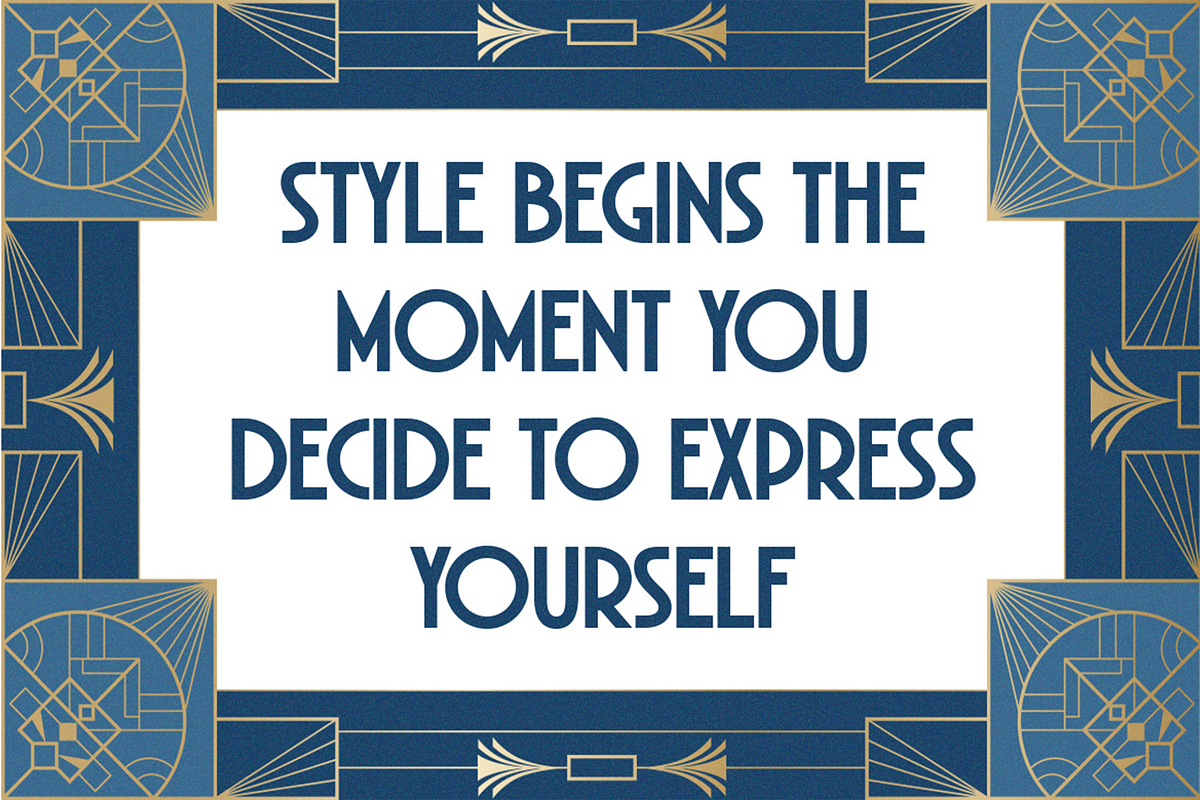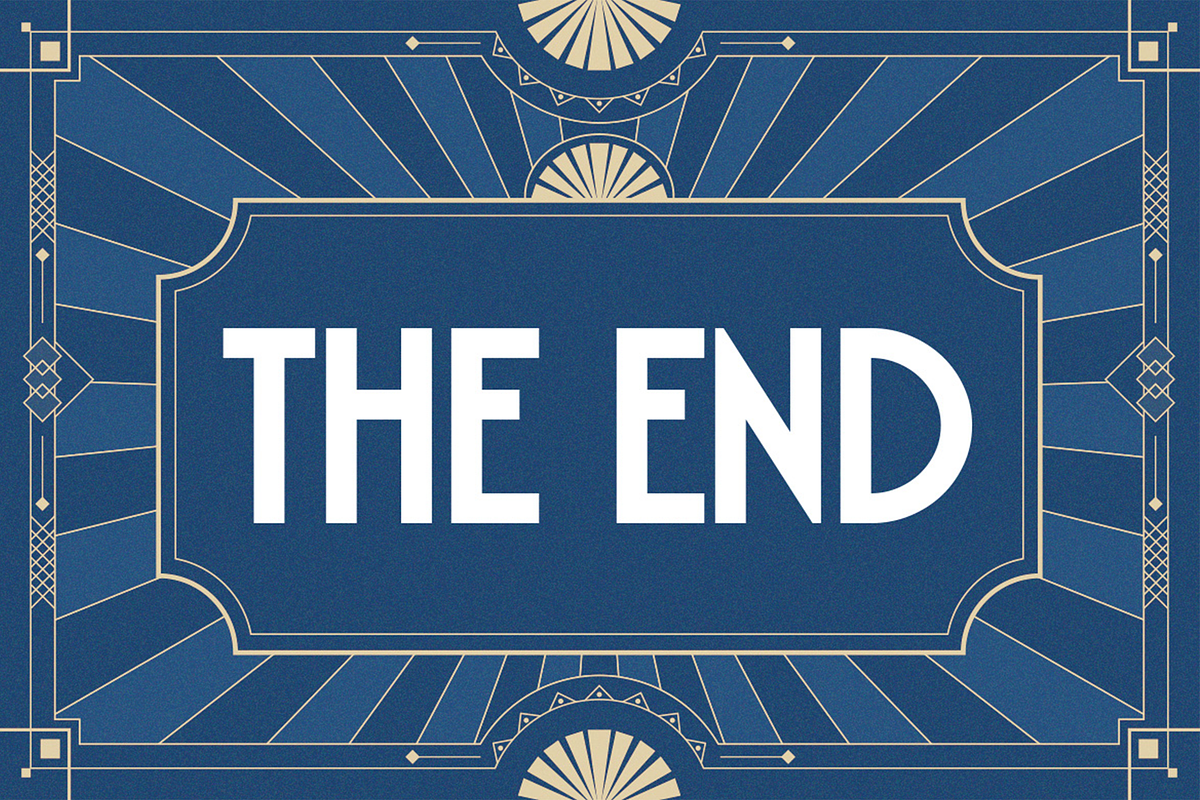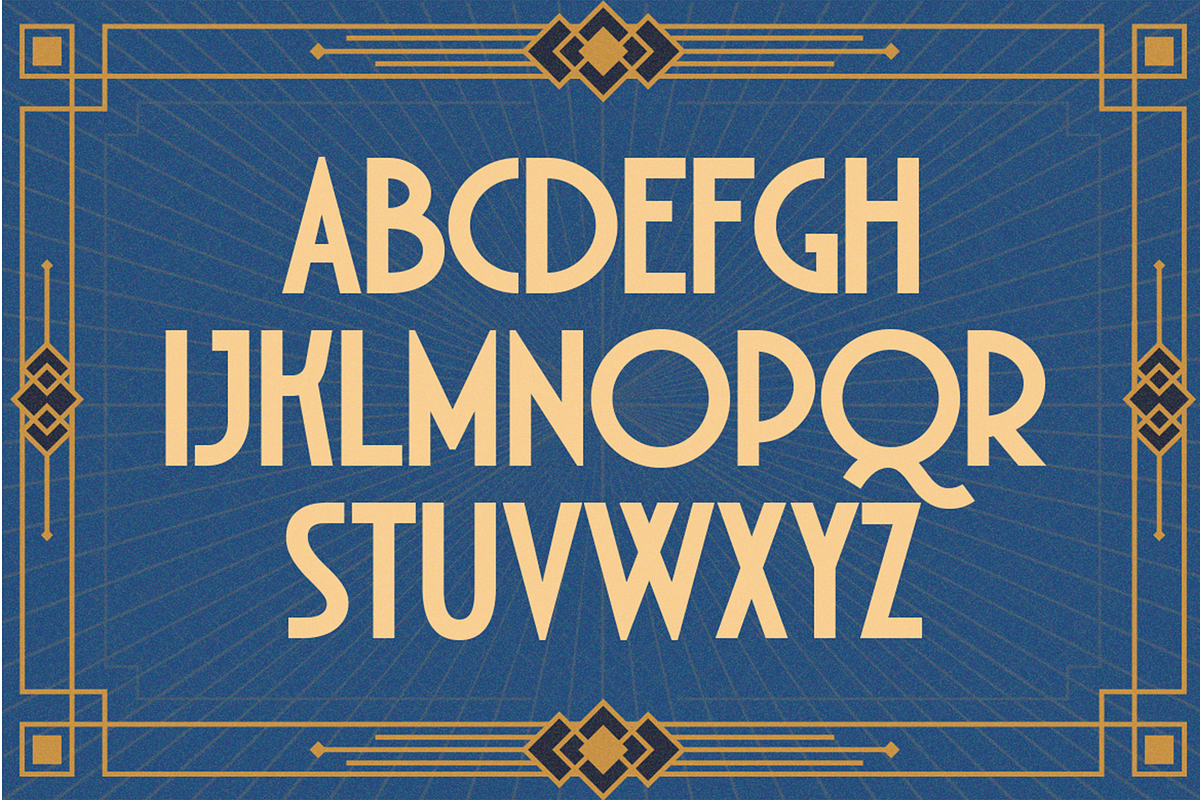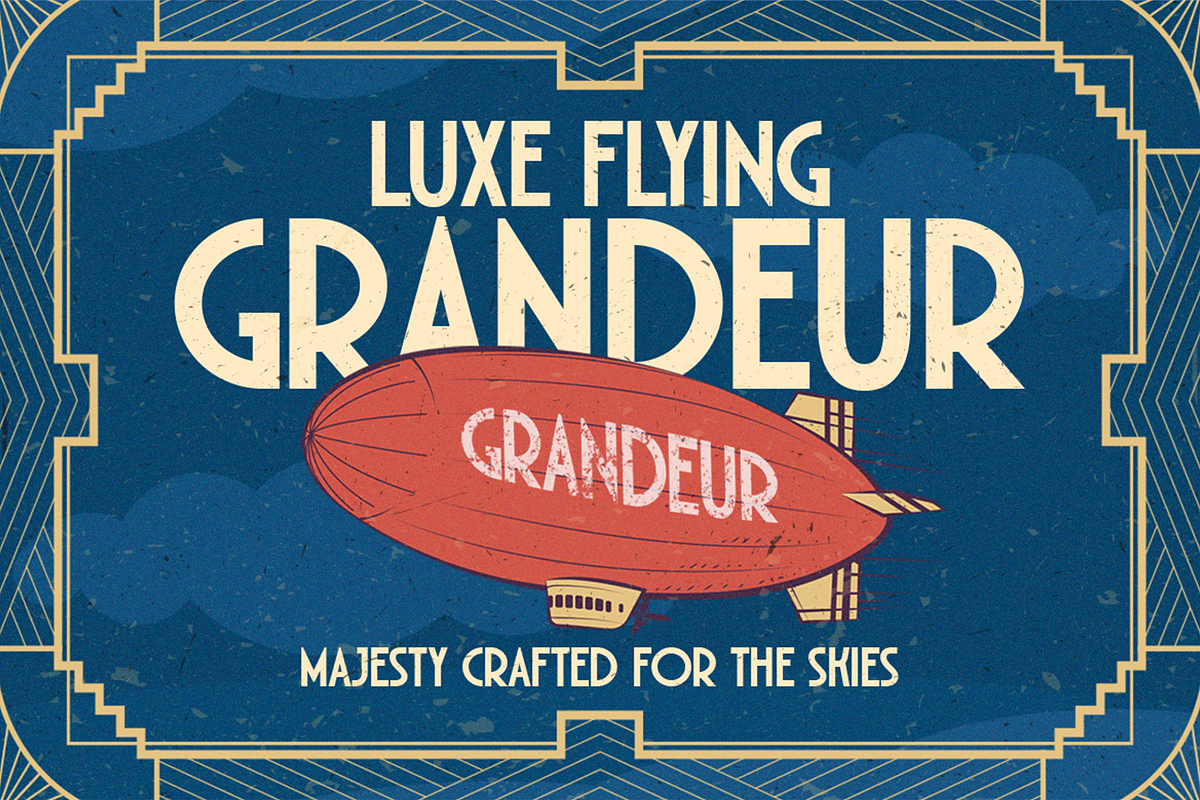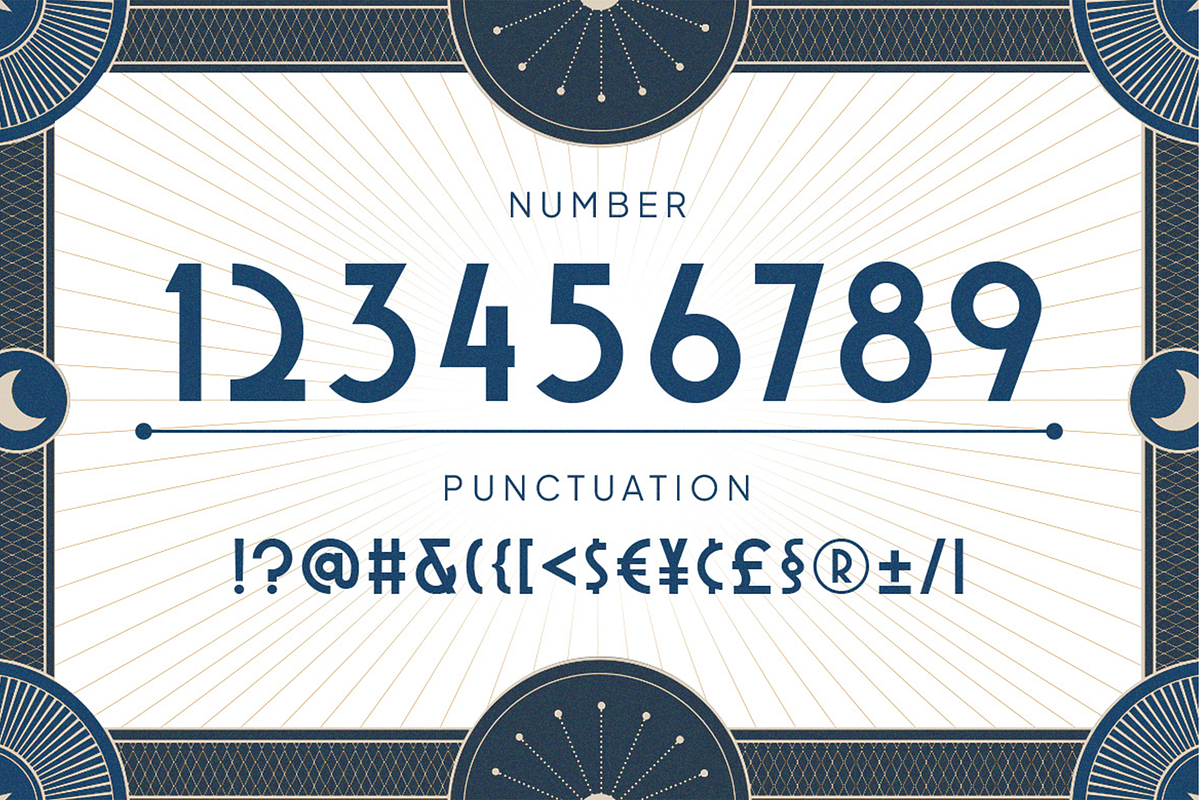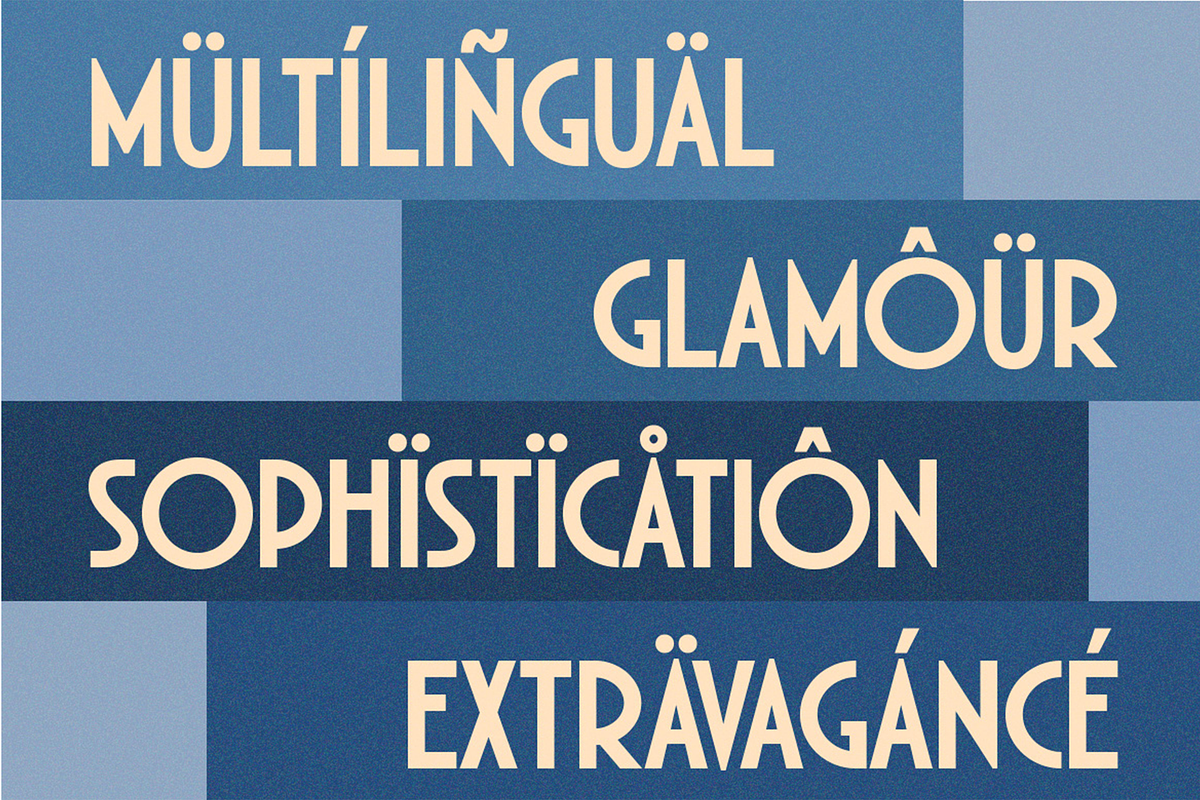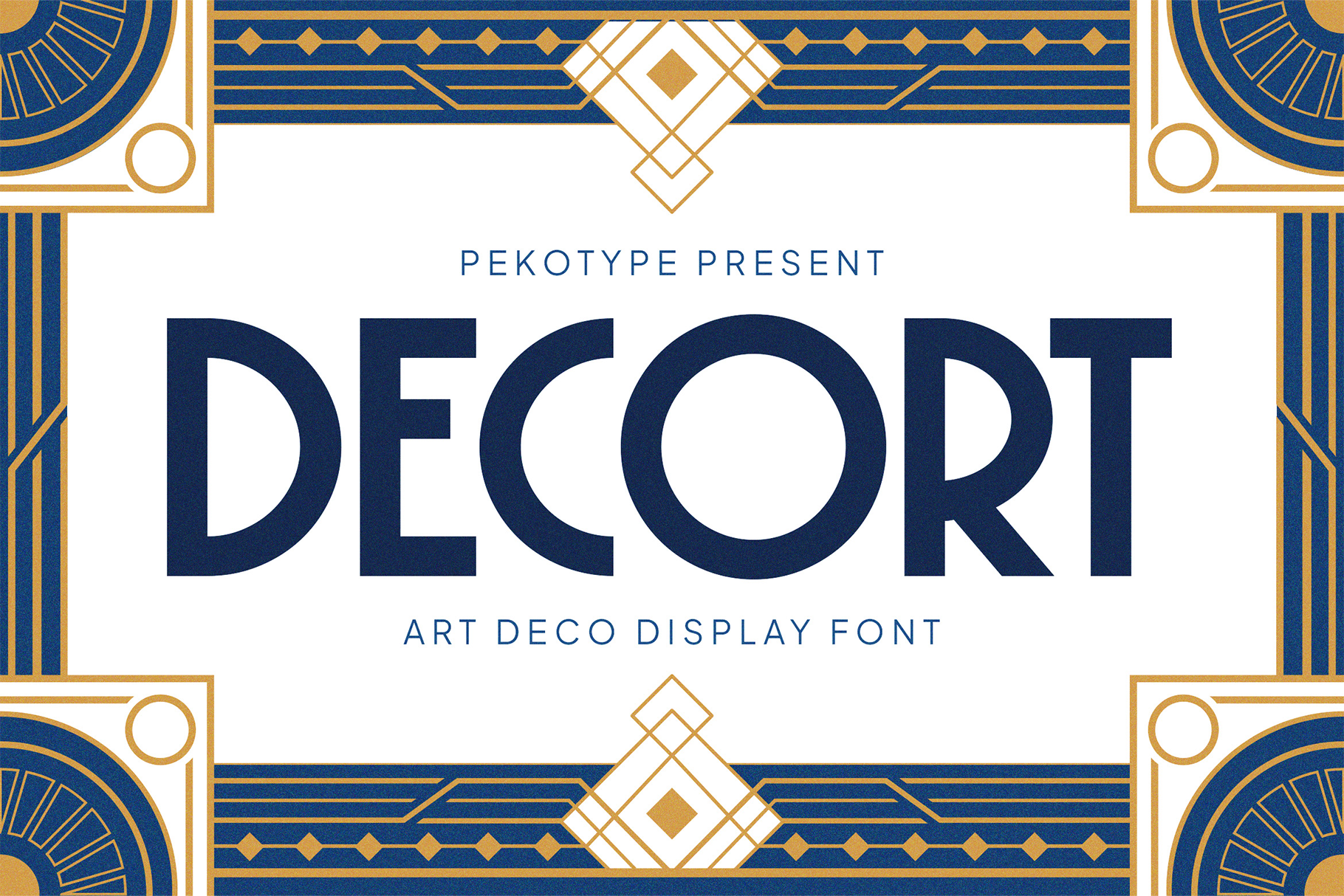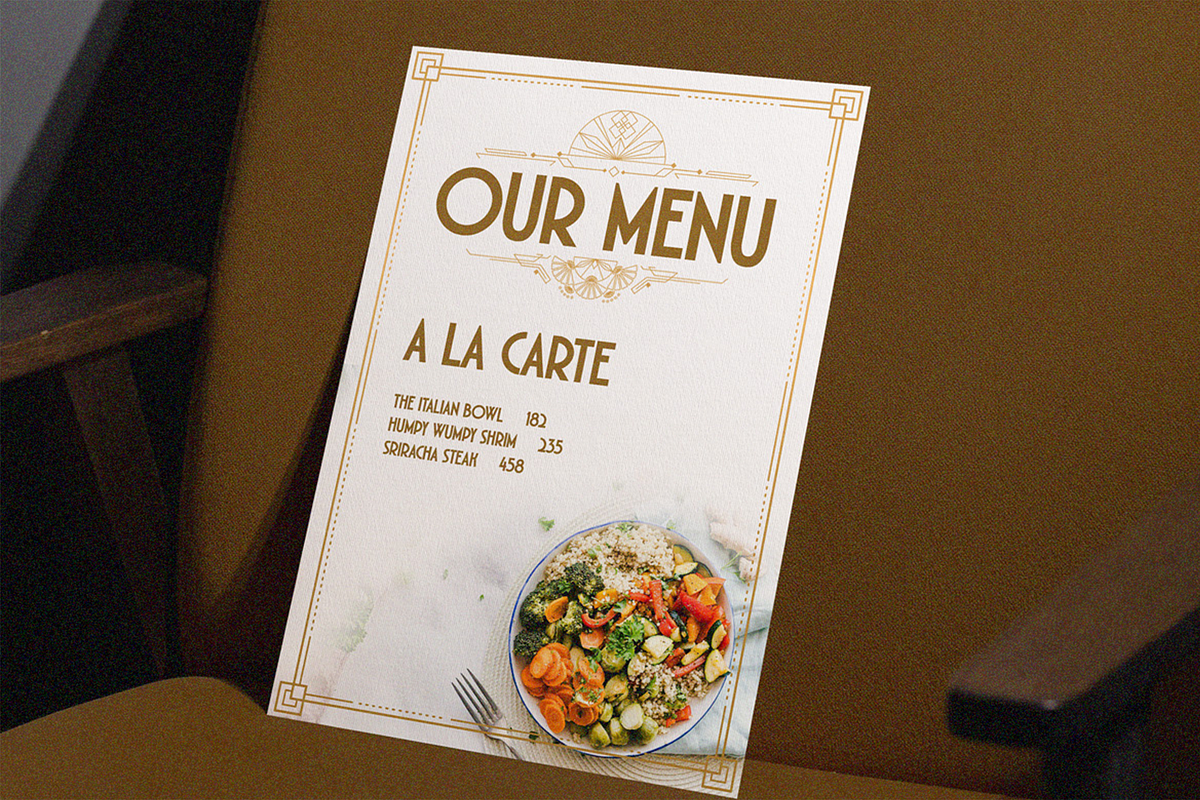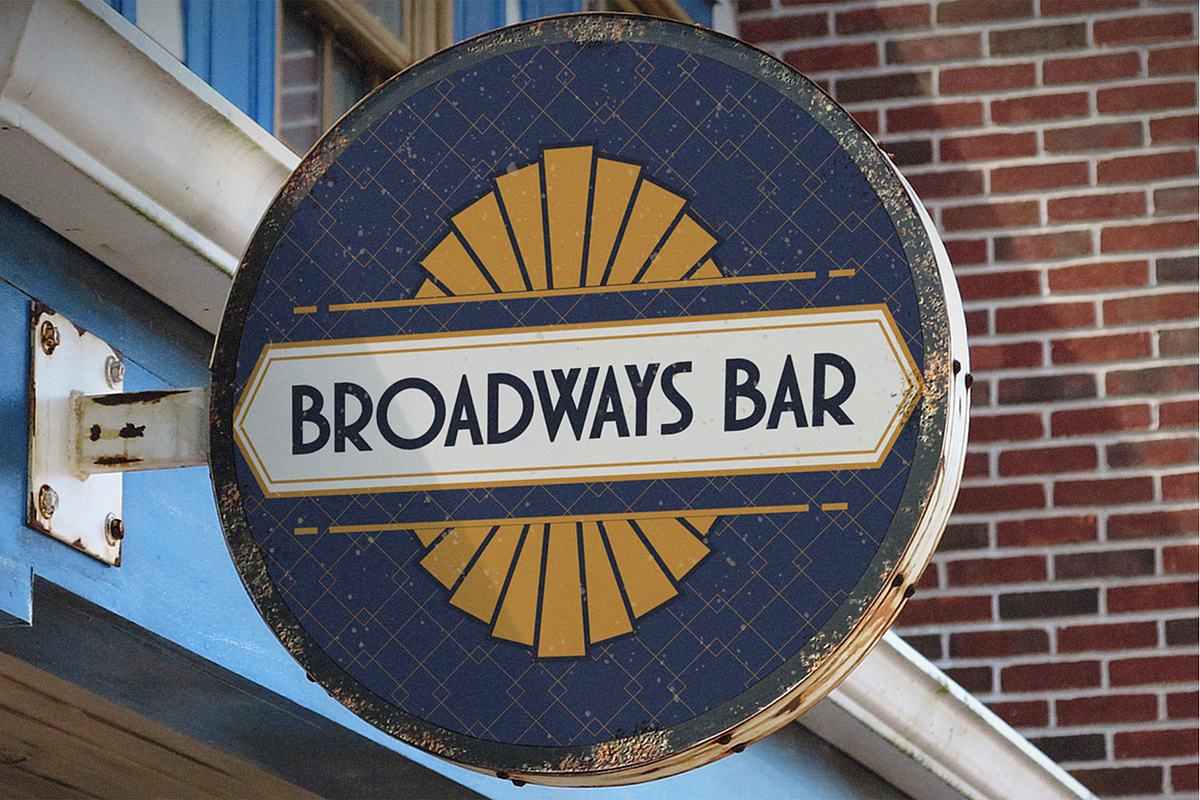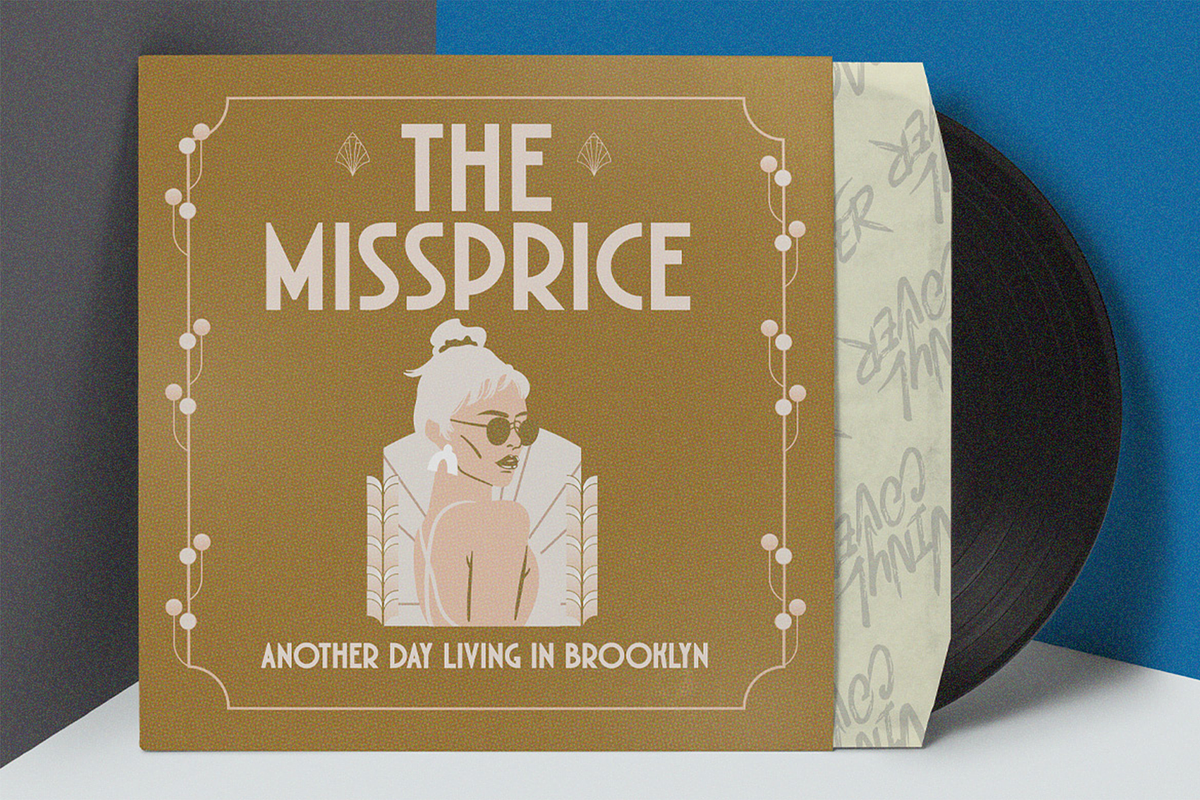
Decort - Art Deco Display Font
Decort – Dazzling Art Deco Display Font of Glamour and Grandeur
Introducing Decort, a stunning Art Deco-inspired display font that radiates luxury, sophistication, and timeless elegance. Designed to capture the dazzling energy of the roaring 1920s, Decort combines bold geometric shapes with refined symmetry — perfect for creating striking visuals that exude confidence and class.
Whether used for branding, logos, invitations, packaging, posters, or event titles, Decort instantly elevates any design with its glamorous touch and vintage charm. Its all-caps structure and multilingual support make it an ideal choice for both modern and classic aesthetics.
Step into the world of Decort — where typography meets extravagance, and every letter tells a story of art, luxury, and sophistication.
- All Caps
- Number, Symbol, & Punctuation